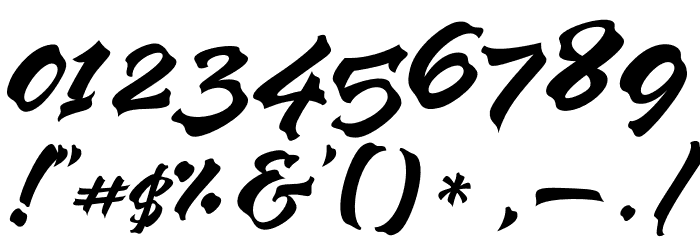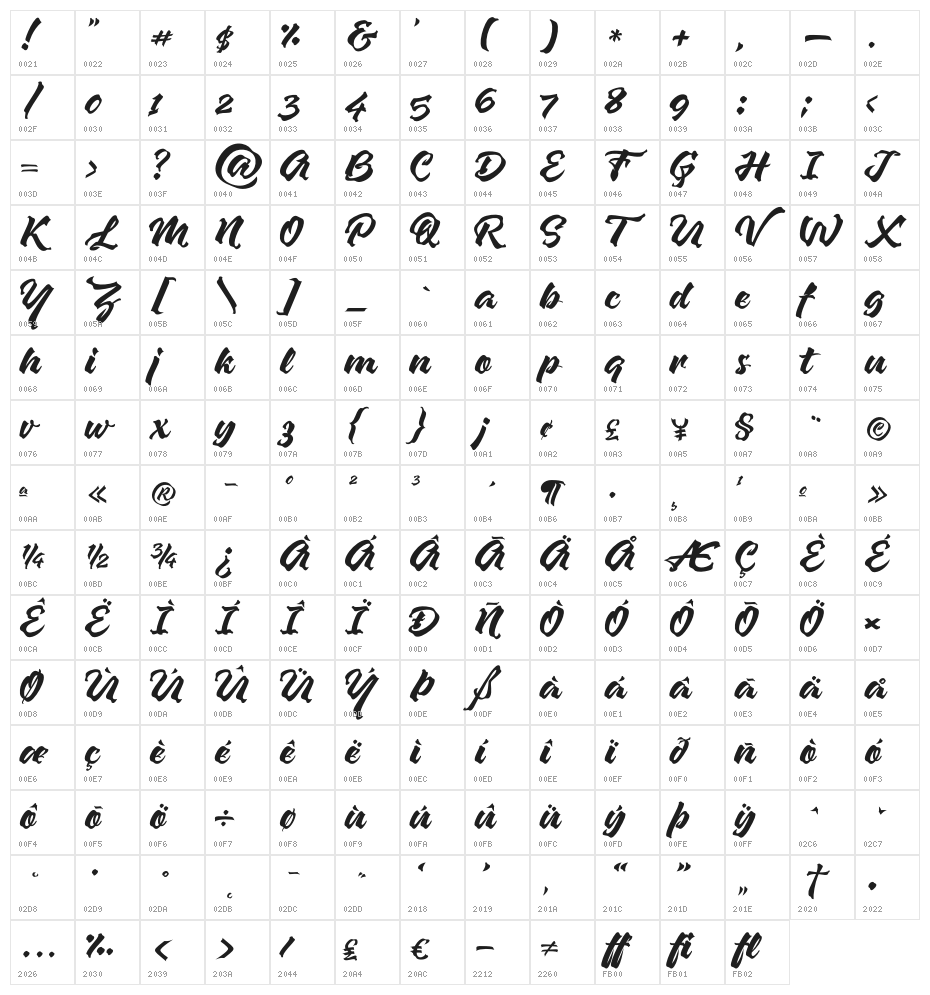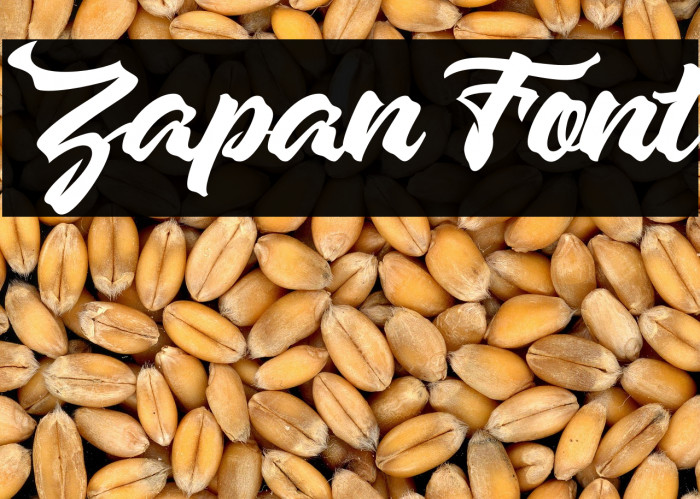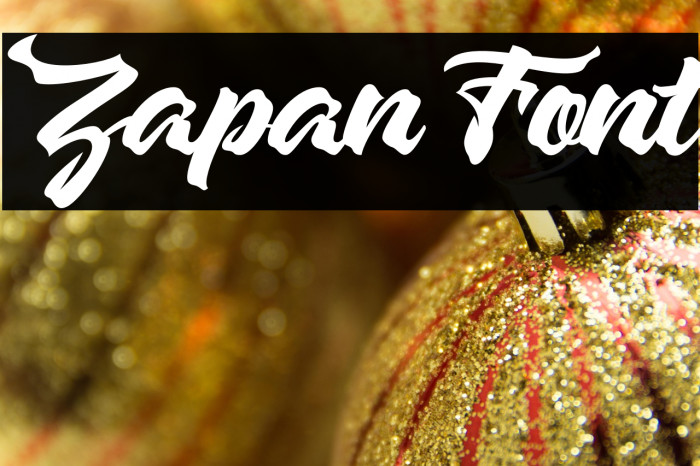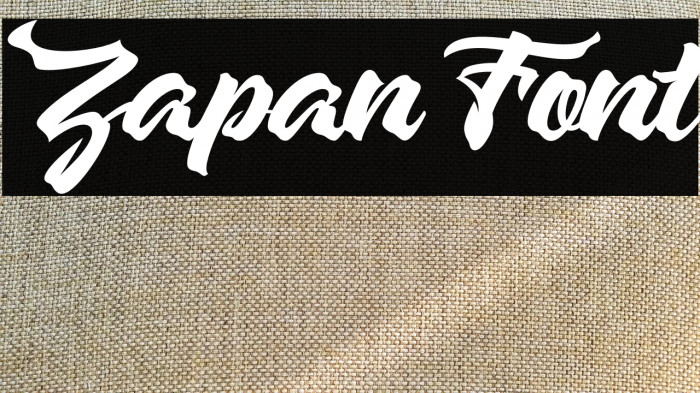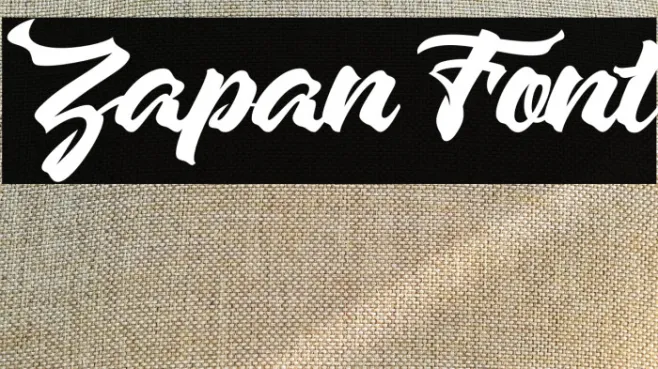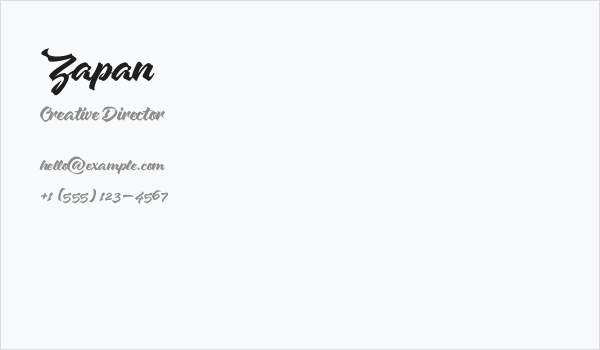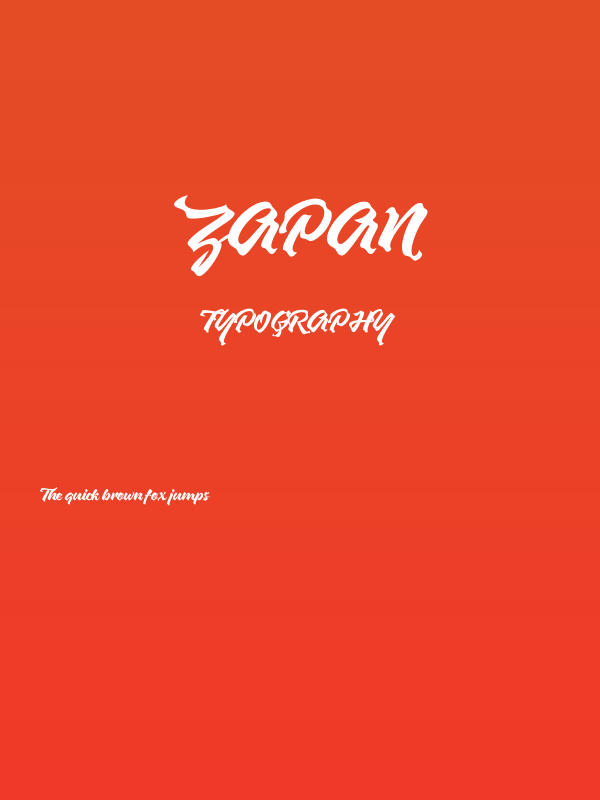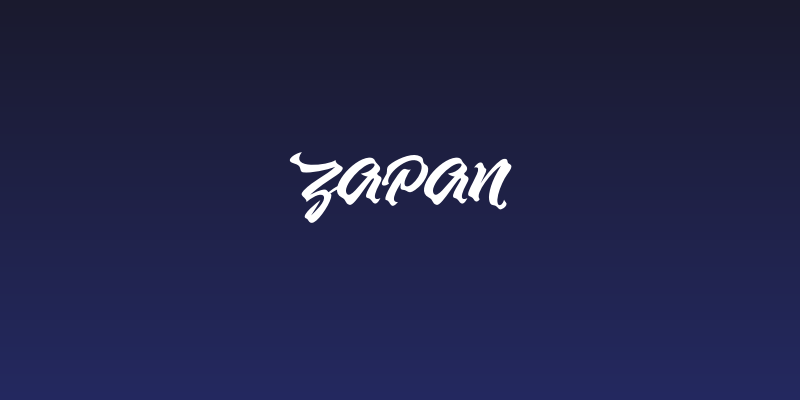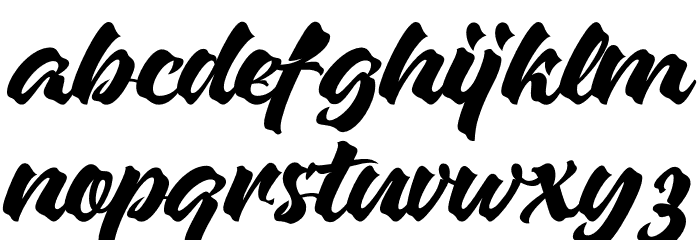
Zapan Font
Zapan Description
This font features a bold, expressive script style with a dynamic and energetic flow. The letters are interconnected, creating a sense of movement and fluidity. The strokes are thick and confident, with high contrast between thick and thin lines, giving it a dramatic and impactful appearance. The uppercase letters are particularly striking, with sweeping curves and flourishes that add a touch of elegance. The lowercase letters maintain the same boldness, ensuring readability while retaining the artistic flair. Numbers and special characters are designed to match the overall style, making them suitable for a variety of creative applications.
| Proposed Projects | Ideal for branding, logos, invitations, and artistic projects requiring a bold, expressive touch. |